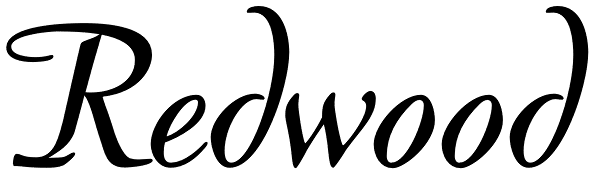
Redwood
Redwood is the fresh and lively digitization of the popular ATF landmark, Raleigh Cursive. Drawn by Willard Sniffin in 1929, and introduced by ATF in 1930, this classic script is prominently featured in almost every published type history book, and...
Redwood
Redwood Swash